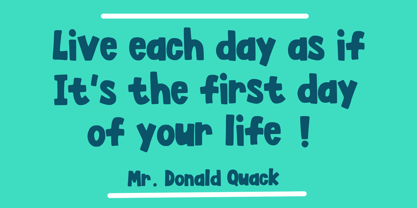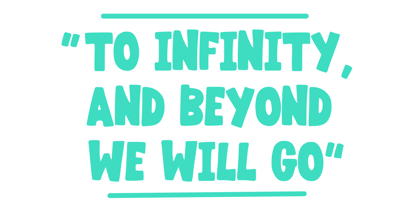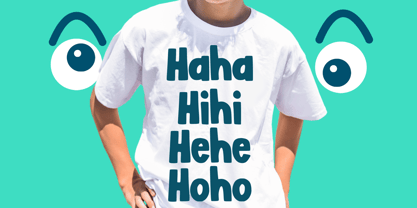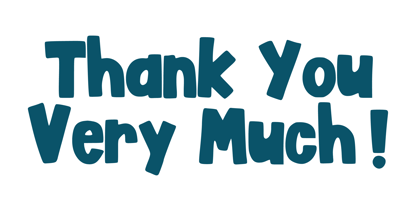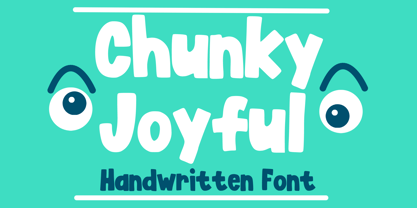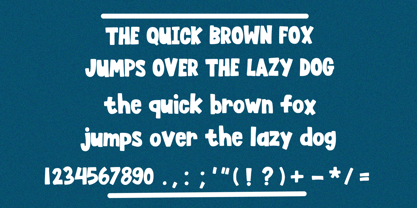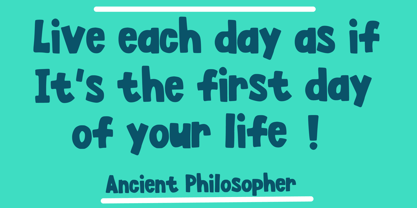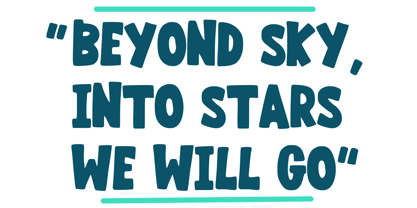
Chunky Joyful
by Mvmet
The Chunky Joyful Font Family was designed by Gabriel Valentinus and published by Mvmet. Chunky Joyful contains 1 styles. More about this family
Chunky Joyful is a vibrant and playful bold comic handwritten font, drawing inspiration from the lively world of comics and cartoons. Its unique charm makes it perfect for a variety of design projects, elevating everything from stickers and t-shirt designs to merchandise and logos. Ideal for magazine and book covers, comics, and cartoon illustrations, this font adds an engaging and dynamic flair to daily typing and creative endeavors. Whether you're crafting eye-catching promotional materials or enhancing personal projects, Chunky Joyful brings a super cool touch to your designs!
Designers: Gabriel Valentinus
Current Foundry: Mvmet